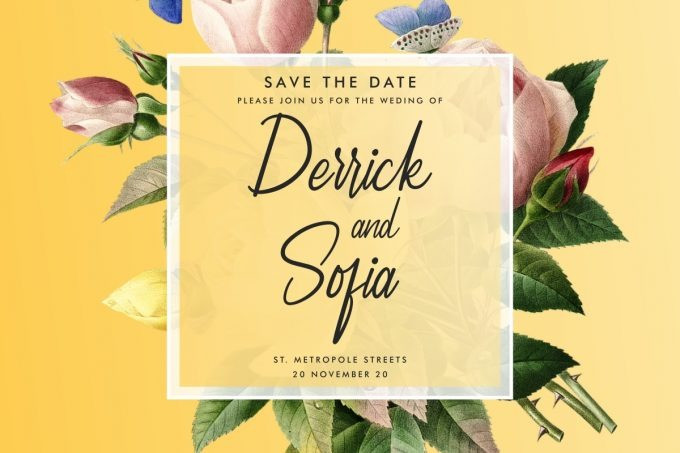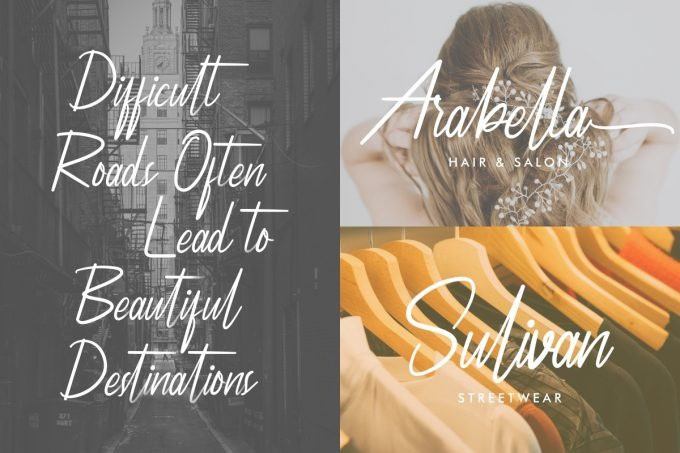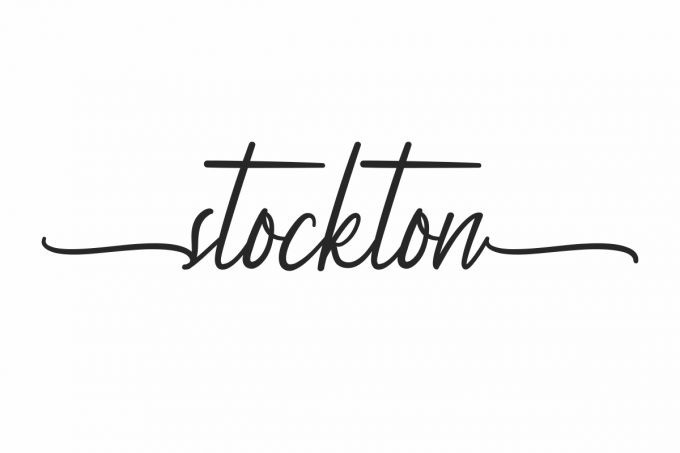
Stockton Script Font
Stockton Font is a calligraphy handwritting font by NihStudio. Try the font by typing your own text below. Please note that the test font below is a demo file, so some specimens/ characters will not show up.
Stockton will be awesome for any projects (require extended license) including : branding, logo, stationery, business card, signage, flyer, brochure etc. The theme style of the font is elegant, luxury, glamour, gold, vintage, stylish, sophisticated and classic brush style. The font will be match for this typeface: wedding, events, real estate, architect, law firm, florist, gardening, makeup artist, travel, hotel, musician etc